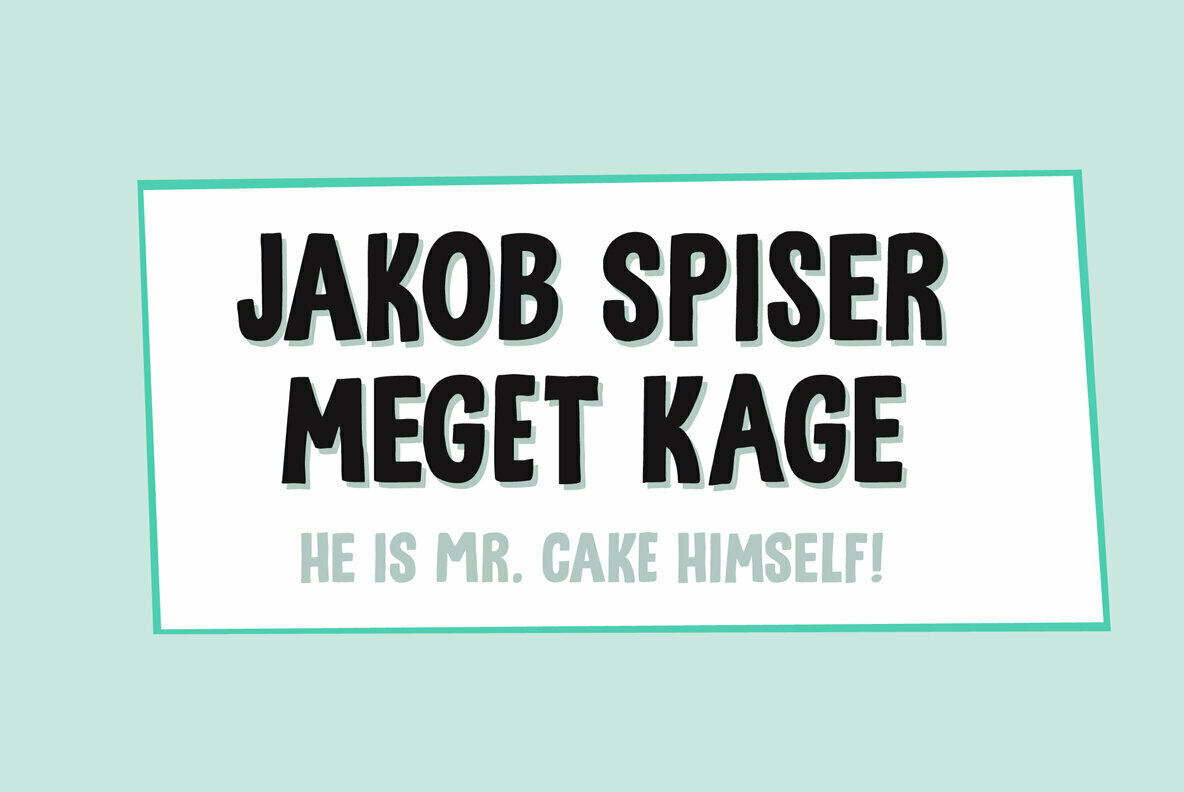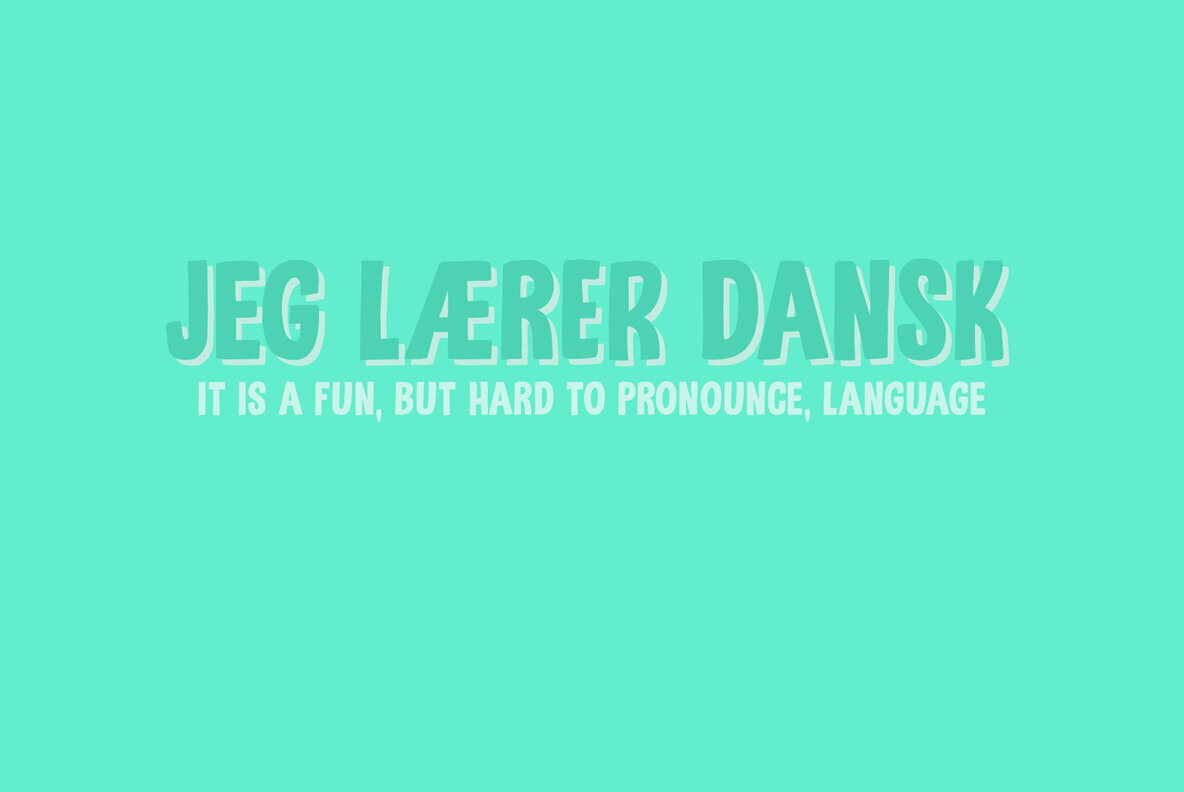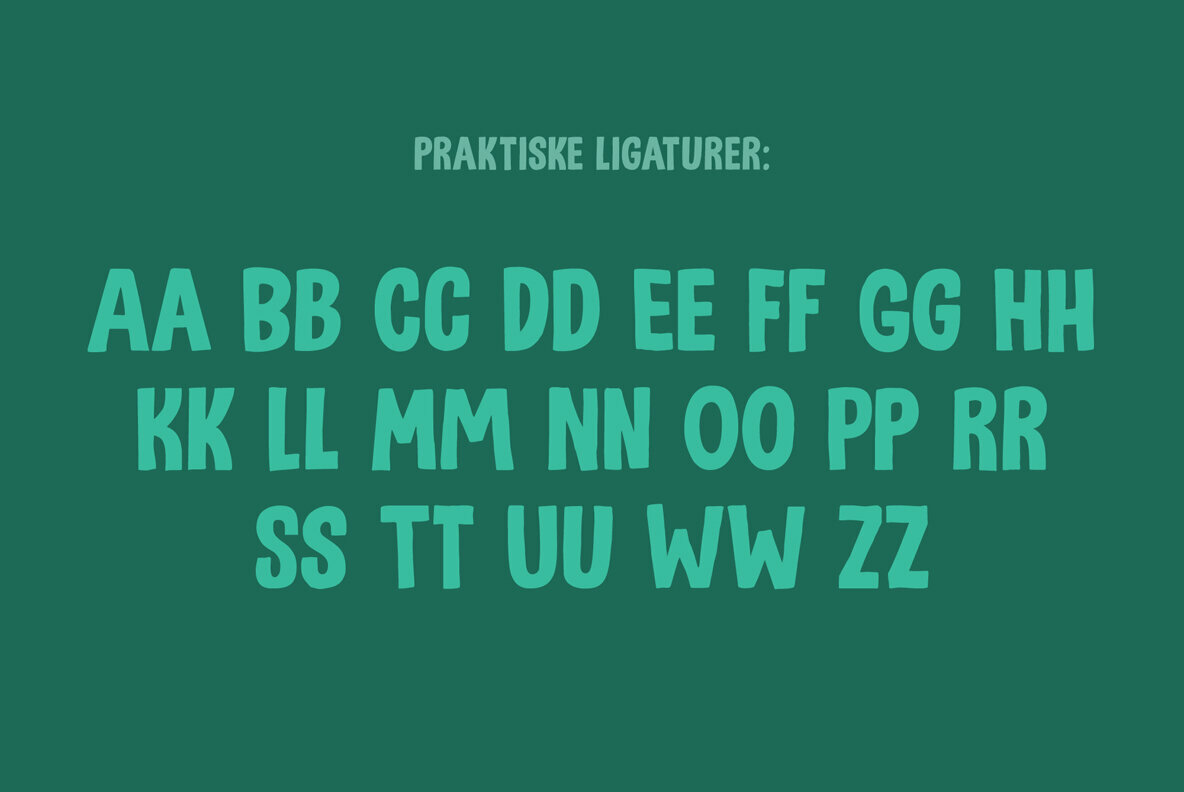
Utroligt Font
I am (trying to) learn Danish using an app on my phone. The grammar and vocabulary are not that difficult, as the Danish language is very close to the Dutch language. The pronunciation, however, is quite tricky. Words look simple when written down, but when pronounced, they sound very different. Take ‘pige’ (‘girl’) - it reads ‘pee-guh’, right? Well, it is pronounced ‘pee-uh’. Or how about ‘brød’ (meaning bread)? If you keep in mind that the o-slash is pronounced as the ‘i’ in bird - almost like ‘uh’, it should be br-uh-d, right? Wrong again. It is pronounced br-uh-l.
Aaargghh!
I will succeed, hopefully!
Utroligt is a Danish word meaning ‘incredible’. It is a nice, uncomplicated all caps font. I made it with a cheap rollerball pen and some nice French paper. Comes with double letter ligatures and all the diacritics you’d like - including the danish ones.